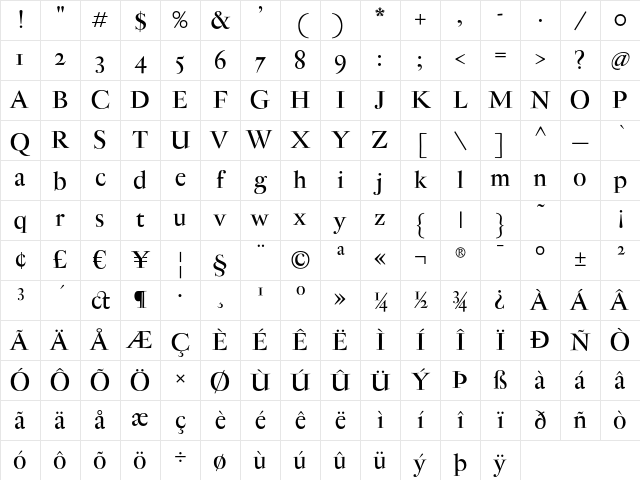
AntiqueModerne wears its vintage influences proudly, with letterforms that recall mid-century signage, classic packaging, and nostalgia-driven design.
Font Pairing: Combine AntiqueModerne with a simple slab or neutral sans - period-accurate companions reinforce the vintage feel without competing for attention.
Pro Tip: Lean into AntiqueModerne's period character by pairing it with aged paper textures, muted colour palettes, and vintage illustration styles.